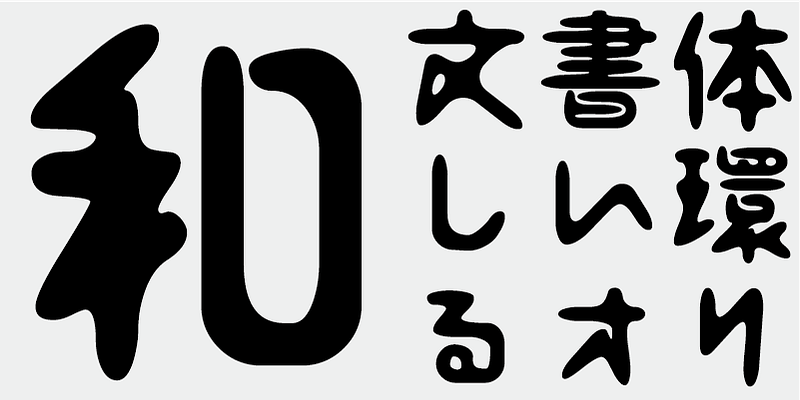
AB Yogurt Font Free Download is a playful and modern sans-serif typeface with soft curves and a friendly, approachable style. Its rounded edges and contemporary feel make it perfect for branding, logos, packaging, social media graphics, and any design that requires a casual and fresh vibe.
AB Yogurt offers excellent readability, making it suitable for both headlines and body text. It seamlessly integrates with design platforms like Adobe Illustrator, Photoshop, Figma, and Canva, offering flexibility for digital and print projects alike.